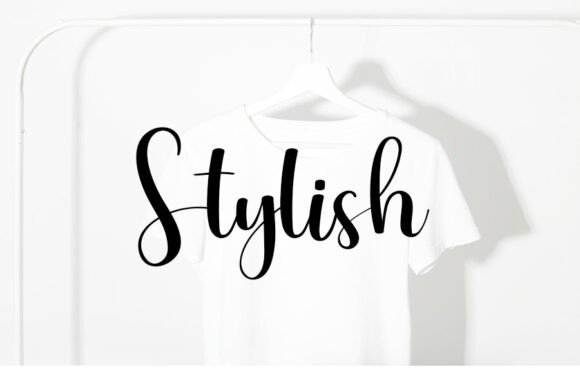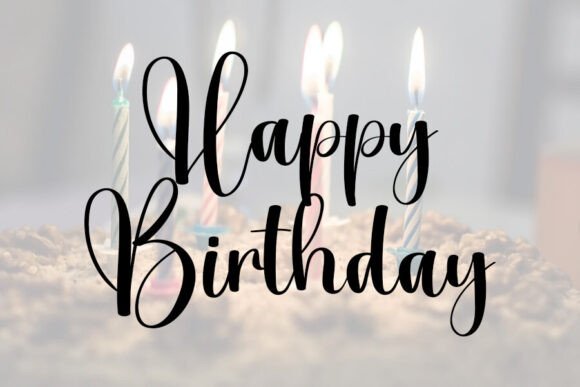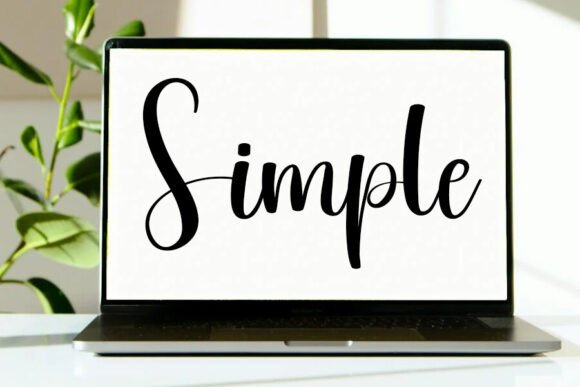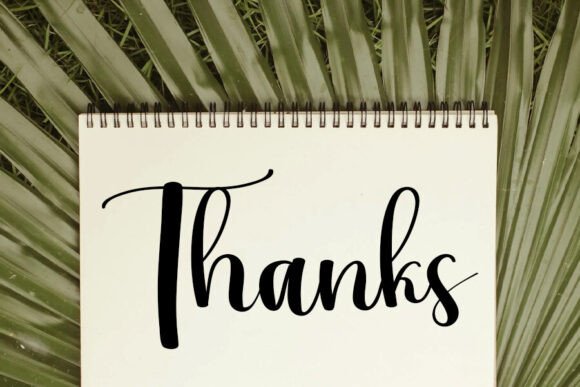
Introducing Background: The Ultimate Font for Elevating Your Designs
In the world of design, fonts play a crucial role in conveying messages, evoking emotions, and creating a lasting impression. If you’re a designer, crafter, or simply someone who loves to dabble in creative projects, you’re likely always on the lookout for the perfect font to bring your vision to life. Look no further than ‘Background,’ a stunning, creatively refreshing font that’s about to become your new go-to.
Aesthetically Pleasing and Versatile
‘Background’ is more than just a font – it’s an experience. With its simplistic design and unique character, this font seamlessly marries functionality with style, making it perfect for a wide range of applications. Whether you’re working on a YouTube banner, logo mockup, wedding invitation, ID card, flyer, or craft project, ‘Background’ is the ideal choice.
Breathe Life into Your Designs
What sets ‘Background’ apart is its ability to infuse progress, development, and a unique edge into your designs. Its clean lines, elegant curves, and carefully crafted details make it a versatile font that can adapt to various design styles and themes. Whether you’re aiming for a modern, minimalist look or a more traditional, ornate feel, ‘Background’ can help you achieve your goals.
Perfect for Engaging and Professional Designs
Here are just a few examples of how ‘Background’ can elevate your designs:
- YouTube Banners: Stand out in a crowded YouTube landscape with a banner that showcases your personality and style. ‘Background’ is perfect for creating eye-catching, professional-looking banners that grab viewers’ attention.
- Logo Mockups: Give your brand a unique identity with a custom logo that incorporates ‘Background.’ This font’s unique character and elegance make it ideal for creating memorable, impactful logos.
- Wedding Invitations: Make your special day even more unforgettable with beautifully designed wedding invitations featuring ‘Background.’ This font’s elegance and sophistication will set the tone for a romantic and memorable celebration.
- ID Cards: Create professional-looking ID cards that make a great impression. ‘Background’ is perfect for designing ID cards that are both functional and visually appealing.
- Flyers: Whether you’re promoting an event, product, or service, ‘Background’ can help you create attention-grabbing flyers that get noticed.
- Crafts: Add a personal touch to your crafts with ‘Background.’ This font is perfect for creating unique, handmade cards, gift tags, and other paper crafts.
Add ‘Background’ to Your Design Toolkit
- Create unique and engaging designs that stand out from the crowd.
- Infuse progress, development, and a unique edge into your designs.
- Seamlessly integrate ‘Background’ into various design styles and themes.